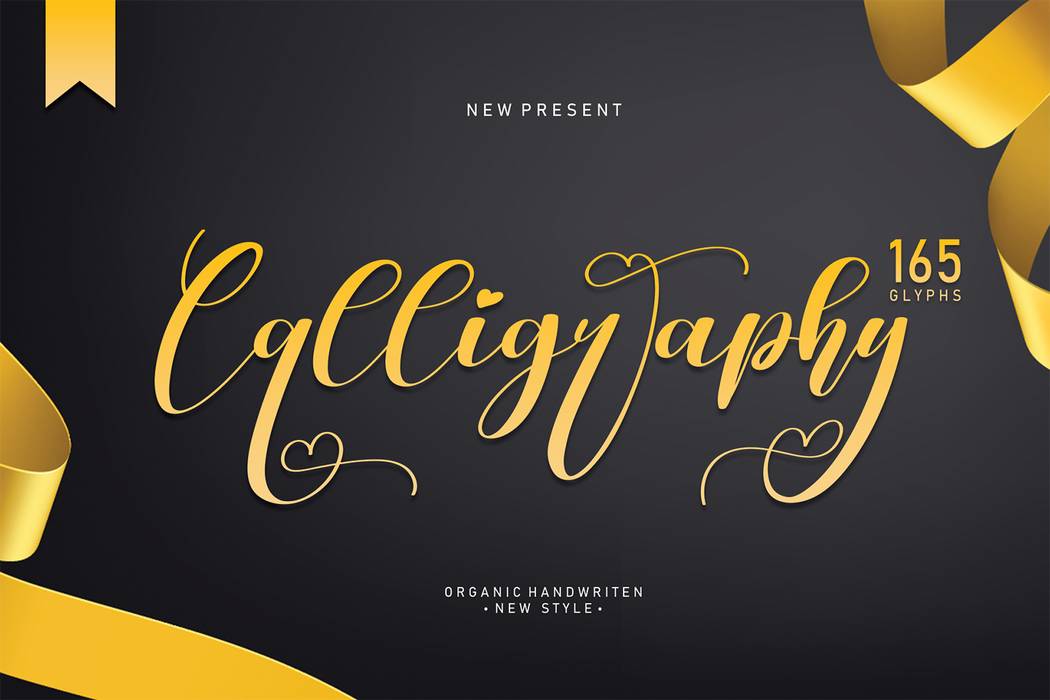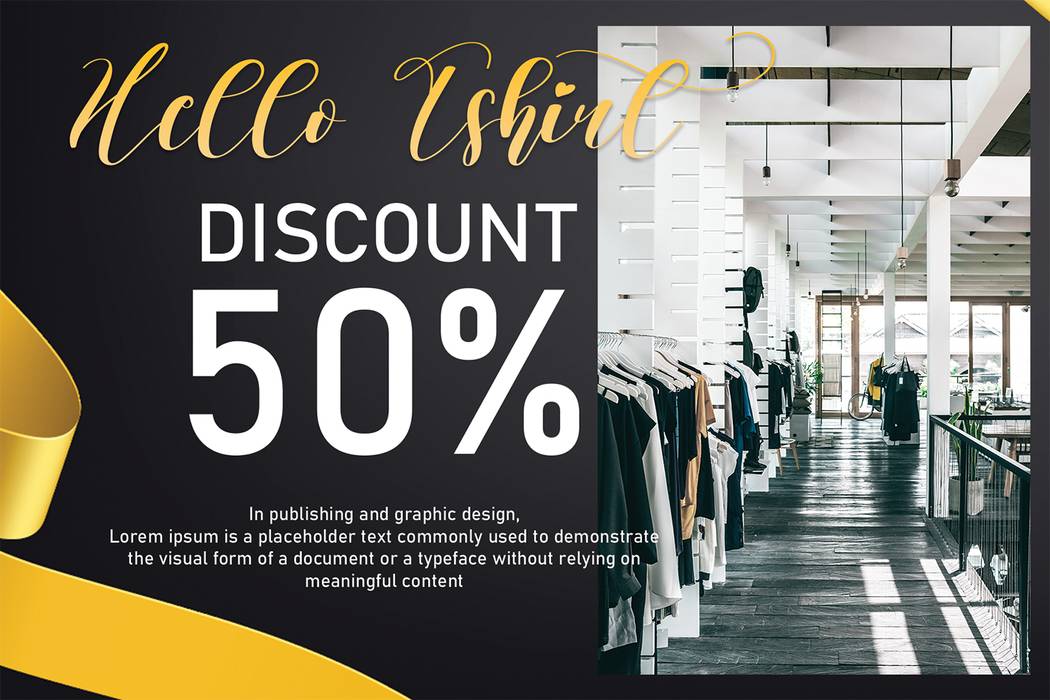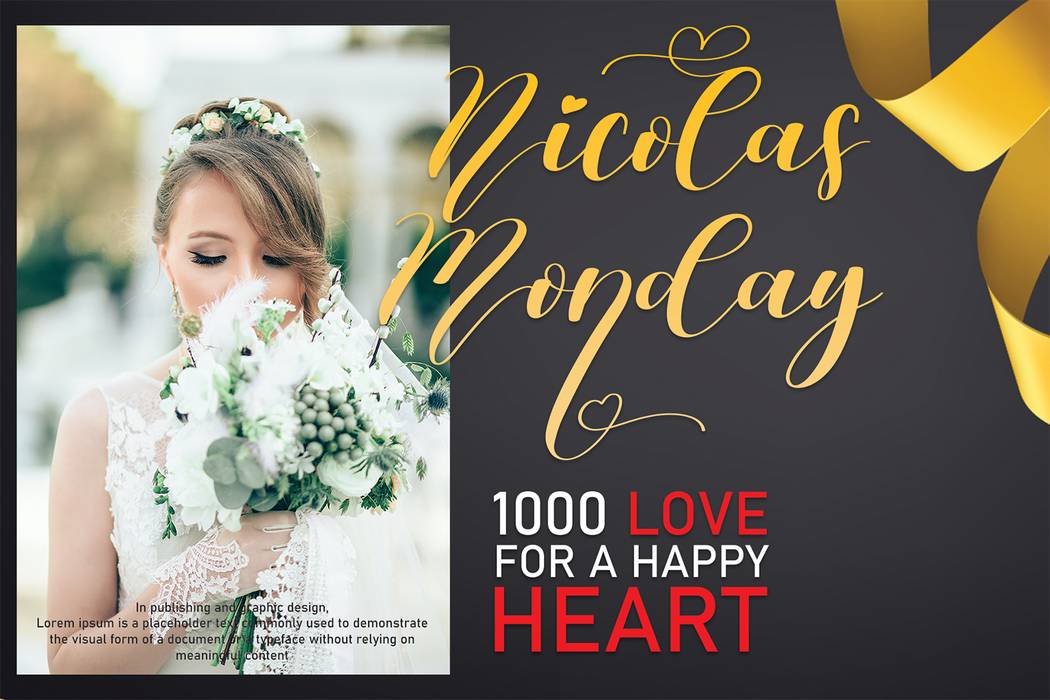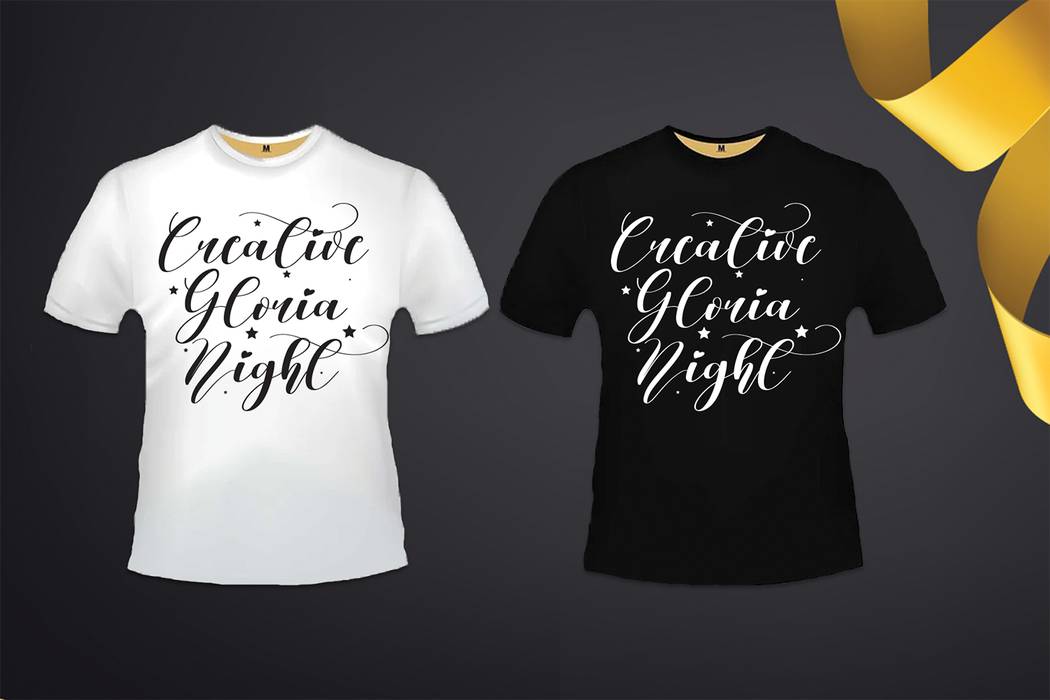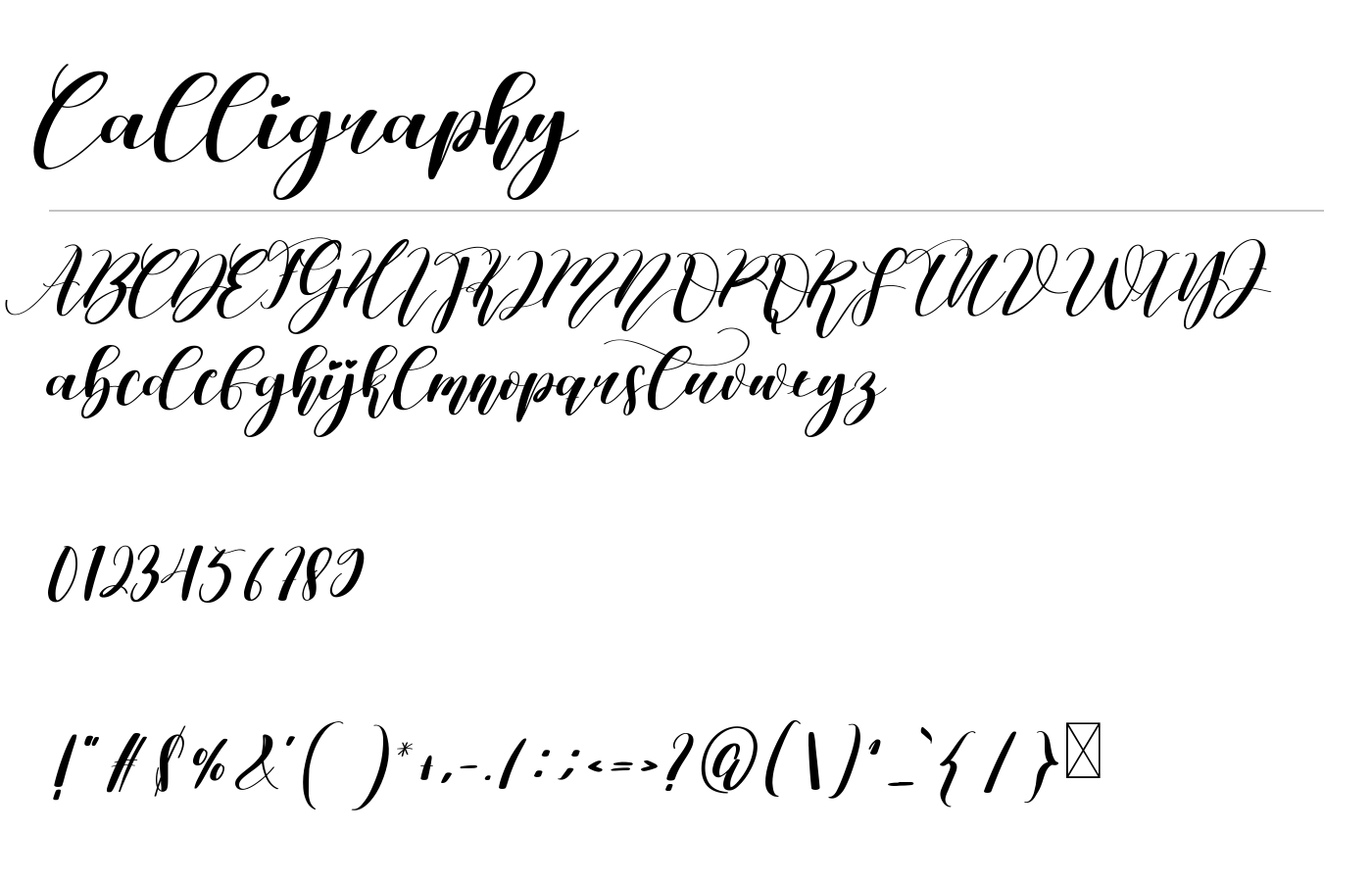
Calligraphy Font is an elegant, flowing script typeface that captures the beauty of hand-drawn calligraphy with smooth, expressive strokes and delicate flourishes. Its medium weight and graceful letterforms make it perfect for adding a sophisticated, romantic touch to wedding invitations, branding, and decorative headlines. This font conveys a sense of artistry and refinement, ideal for projects that want to evoke charm and elegance.
Calligraphy Font
About Calligraphy Font